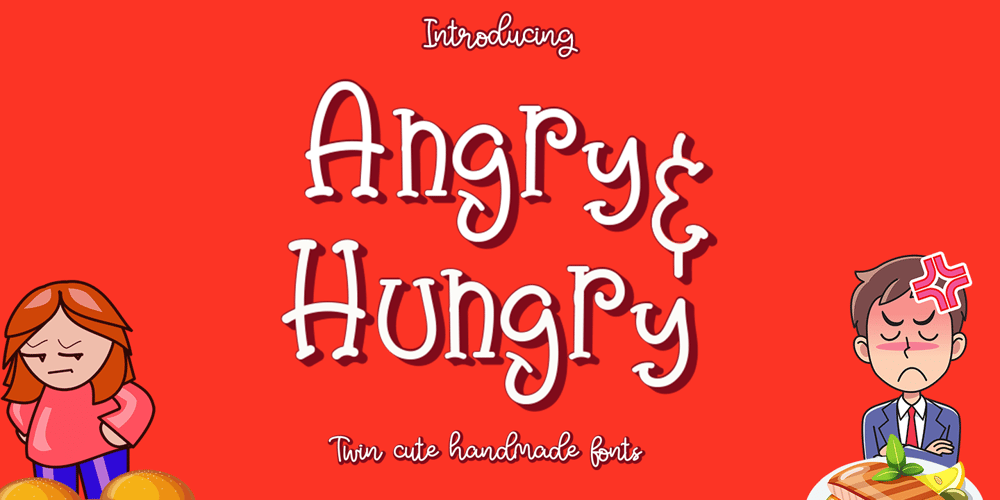
Angry&Hungry Font Family was designed by Sarwo Edhi Prayitno and published by Haksen. Angry&Hungry contains 4 styles and family package options. Hello Everybody,I just want to introduce my new twin cute fonts in one.These are “Angry & Hungry”.As the preview images, This font comes with funny, cute taste.These fonts can be used in everything your requirement.What’s include :- Angry & Hungry otf- Angry &Hungry Shadow otf- Angry & Hungry Script Shadow otfIf any question, please contact me.Happy Designs,Haksen